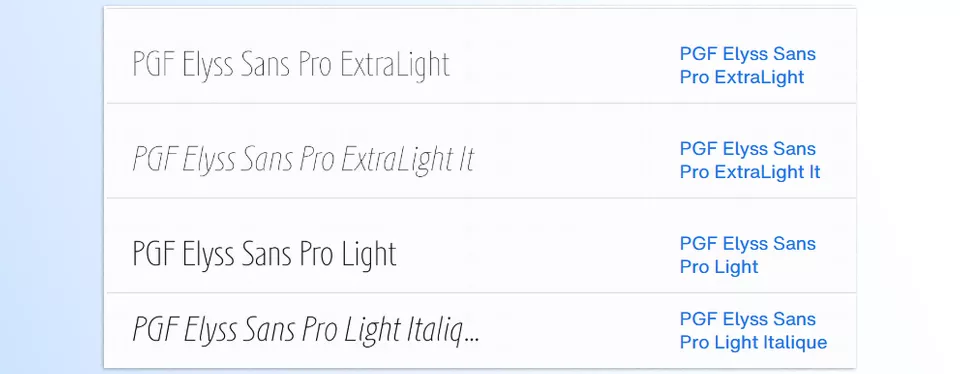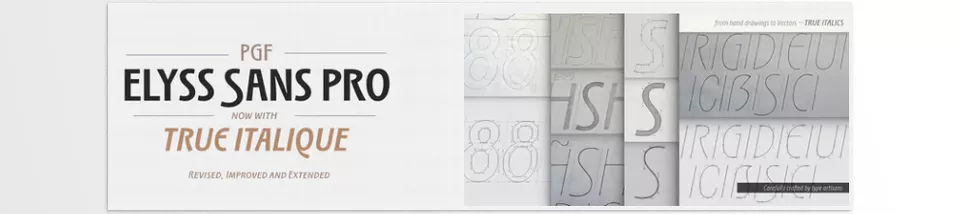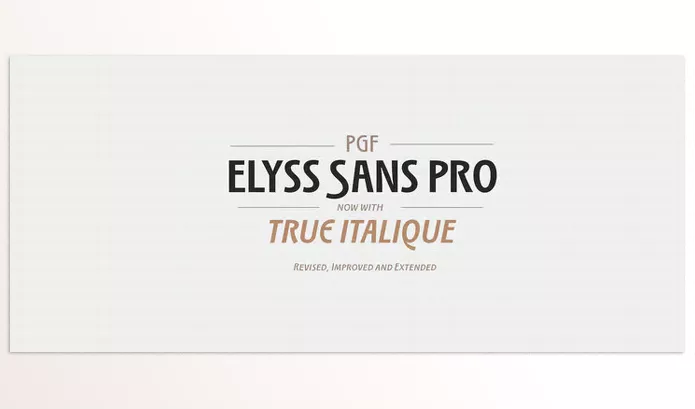
The PGF Elyss Sans Pro Font Family is a font more suitable for contemporary graphics design due to its clean lines. In addition, this font family catches attention because of its ease of use when creating labels, digital invitations, or any other sort of graphics.
• Rich Glyph Set: Accessibility is guaranteed with global coverage that incorporates over 100 languages, aided by support for more than 1000 glyphs.
• Versatile Applications: These fonts are perfect for creating labels and invitations, as well as designing web content.
• Advanced Typography: Improvement in font appearance is done with font ligatures of both standard and discretionary types.
• Numerical Flexibility: Varies with the needs of the user, provides old style, lining, small caps, and tabular numerals.
• Scientific and Fractional Forms: Include specialized forms for scientific or technical mathematical content.
• Localized Customization: Support is tailored to some selected languages within Europe and parts of Asia.
Image 1: Stand out by giving your projects a unique touch with a font that delivers unmatched elegance and sophistication.
PGF Elyss Sans Pro Font Family - Stand out by giving your projects a unique touch with a font that delivers unmatched elegance and sophistication.
Image 2: Multilingual and cross-format typographical creativity is now a reality with this versatile font family.
PGF Elyss Sans Pro Font Family - Multilingual and cross-format typographical creativity is now a reality with this versatile font family.